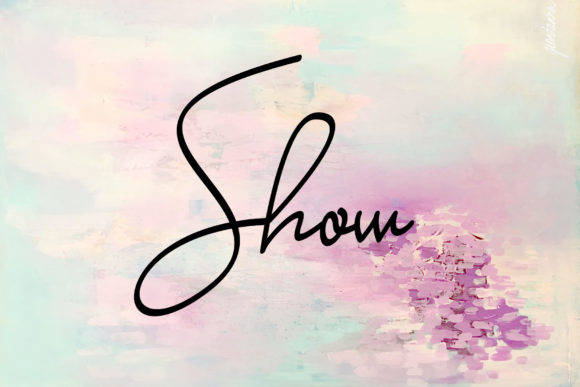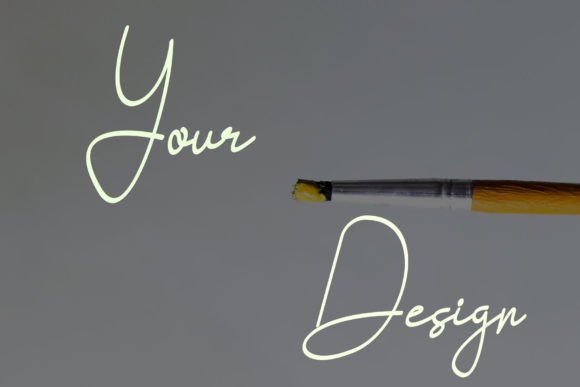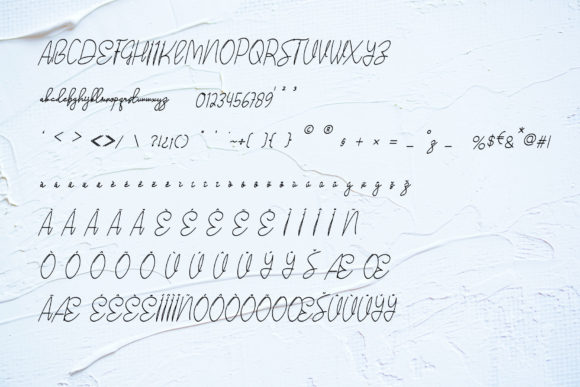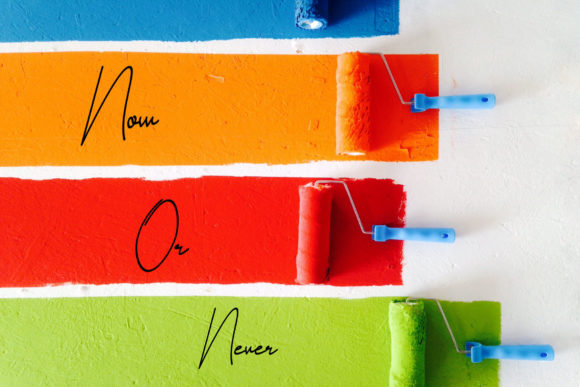
The Perfect Recipe for Unique Design: Introducing Batter Font
As a designer, have you ever found yourself rummaging through your favorite fonts, searching for the perfect one to bring a personal touch to your chalkboard quotes or teaching materials? I know I have. There’s something about handwritten fonts that just feels more authentic and engaging, don’t you think?
That’s where Batter Font comes in – a beautiful, authentic handwritten font that’s specifically designed to add a realistic feel to your designs. Its unique look and feel will transport your viewers back to the good old days of chalkboard learning, and make your designs stand out from the crowd.
Whether you’re a teacher, a designer, or just someone who loves creating, Batter Font is a valuable addition to your toolkit. With its versatility and charm, you’ll be able to create designs that are both personal and professional – the perfect recipe for success!
Batter Font Key Features
- Font Size and Style: Batter Font comes in a single weight and has a standard font size of 12pt.
- Unique Characteristic: Batter Font features a distinctive, hand-drawn style with rounded edges and subtle texture, giving it a friendly and approachable feel.
Batter Font Review
Batter Font is a unique and quirky font that has its charm. Here are some things that work well: ✨
- Customizability: Batter Font offers a range of customization options, making it suitable for various design projects.
- Unique aesthetic: The font’s irregularities give it a distinctive, hand-drawn look that can add character to designs.
- High-resolution support: Batter Font supports high-resolution displays, ensuring that it looks crisp and clear even on modern devices.
- Readability: Due to its irregular shape, Batter Font may not be the most readable font, especially for large blocks of text.
- Limited language support: Batter Font may not support all languages, which could be a concern for multilingual design projects.
- Overuse: The font’s unique look can become gimmicky if overused, so it’s essential to use it judiciously.
Overall, Batter Font is a solid choice for designers looking for a quirky, hand-drawn font. While it may have some limitations, its customizability and unique aesthetic make it a valuable addition to any design toolkit.
Use the Batter Font for titles, headings, and emphasis to create visual interest in your designs. Experiment with different font sizes and colors to create contrast and hierarchy. You can also pair the Batter Font with other fonts to create a unique and eye-catching typography.
The Batter Font is ideal for creating bold, eye-catching titles and headings for various designs, such as:
– Infographics
– Marketing materials
– Digital signage